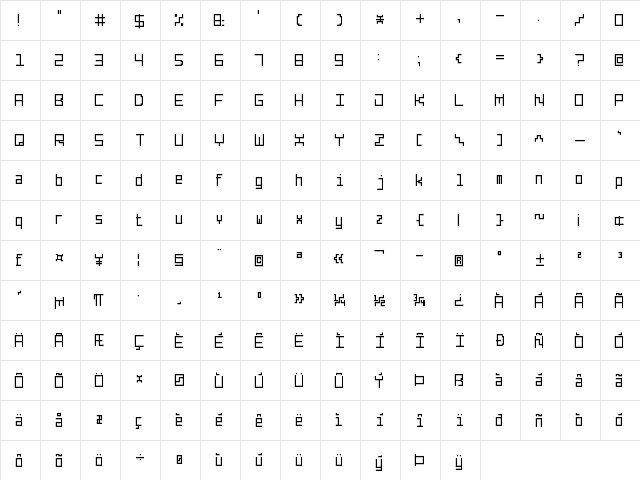
Line Pixel-7 Regular
| Foundry | Style-7 |
| Designer | Sizenko Alexander |
Design Context for Line Pixel-7 Typeface
Line Pixel-7 is rooted in pixel-grid construction, making it a natural fit for game UI, retro computing aesthetics, and digital nostalgia projects.
A natural choice for retro game titles, chiptune music branding, 8-bit UI, and digital nostalgia projects.